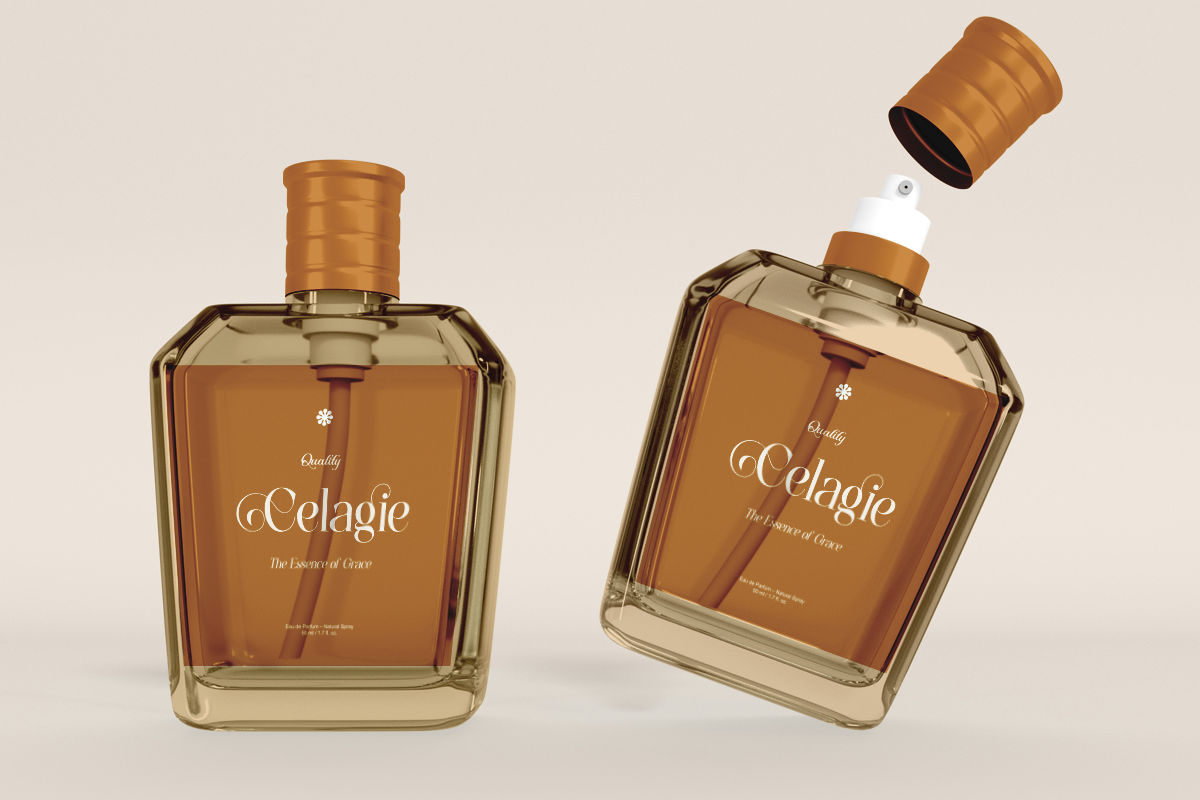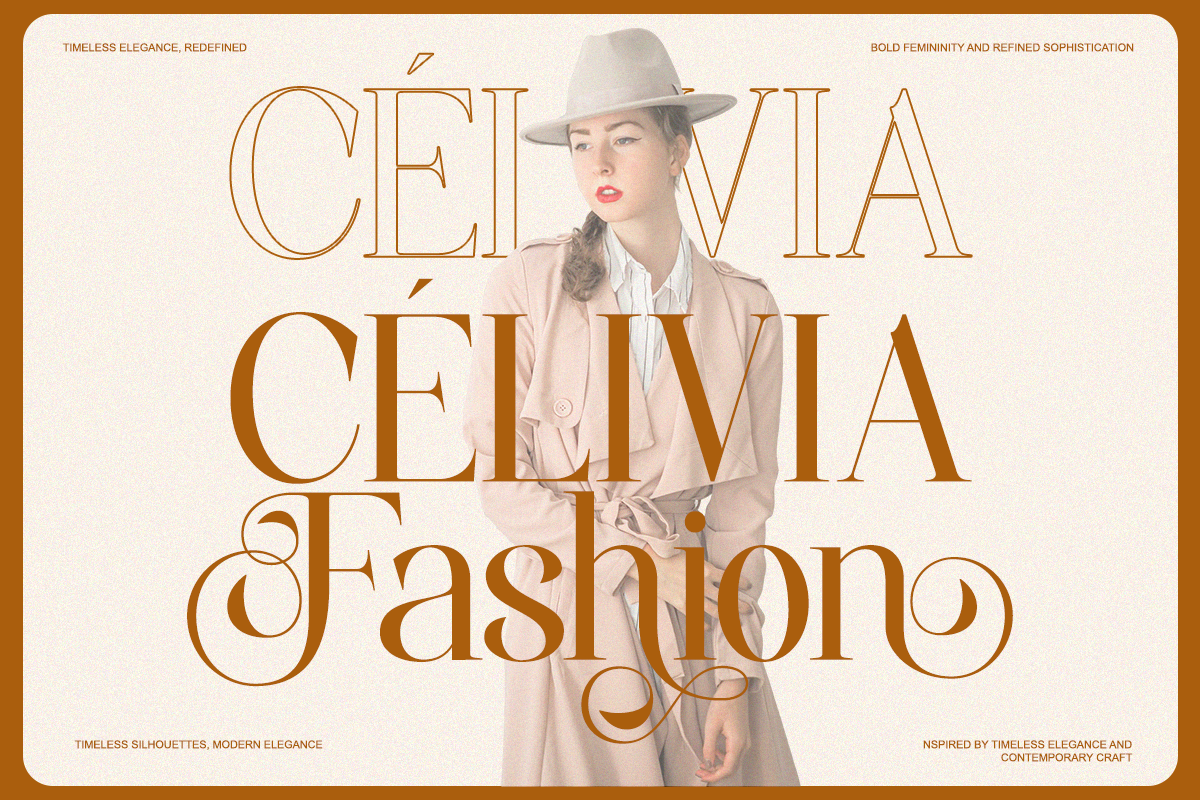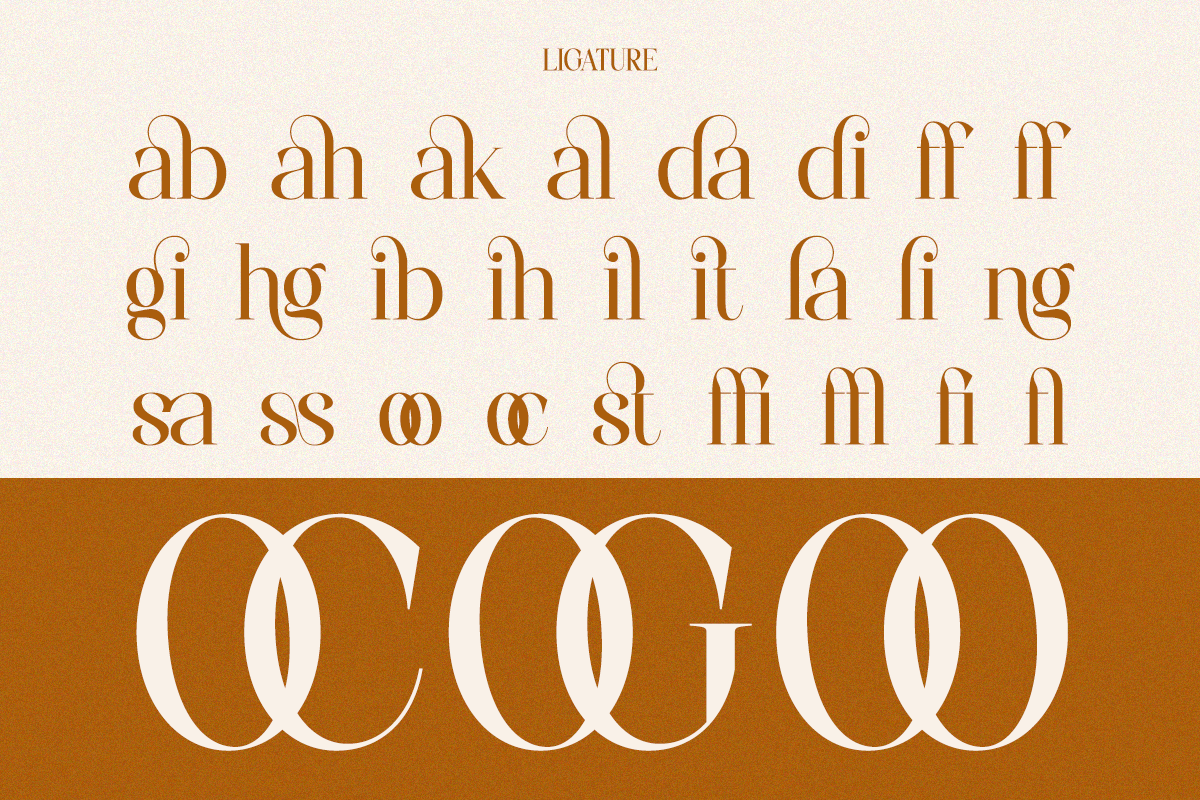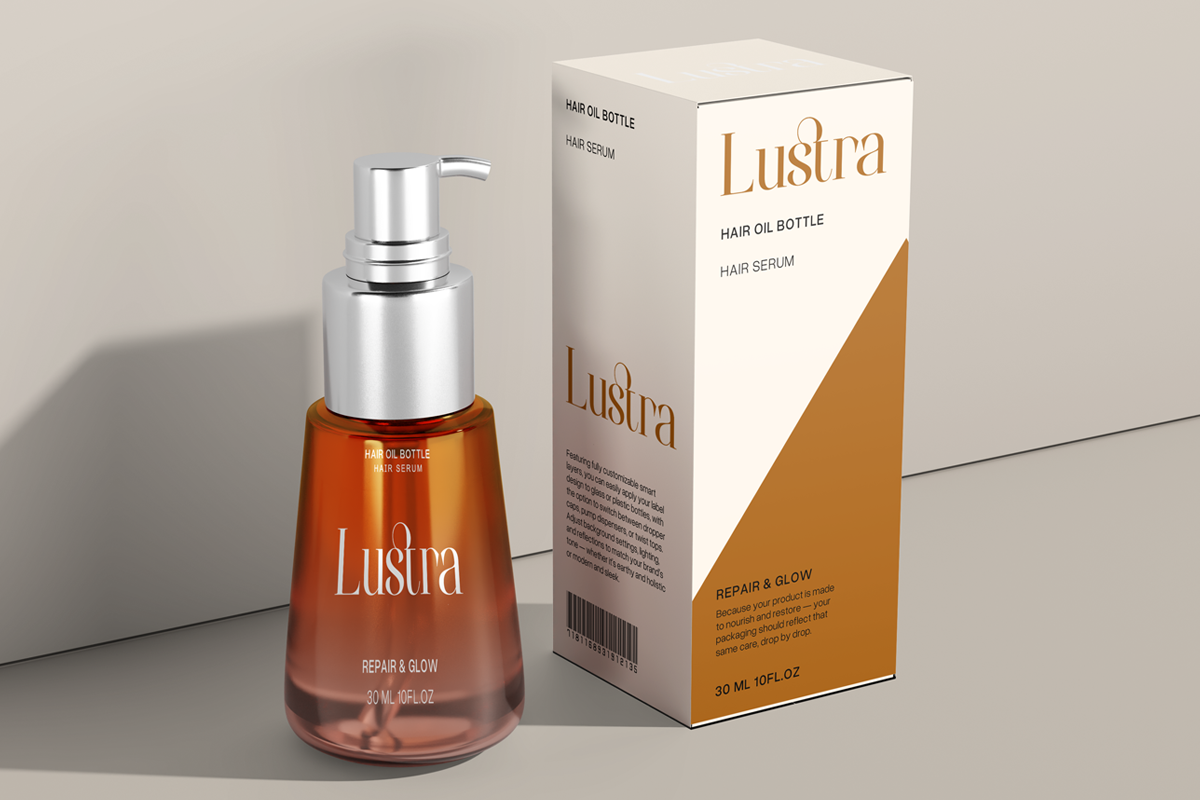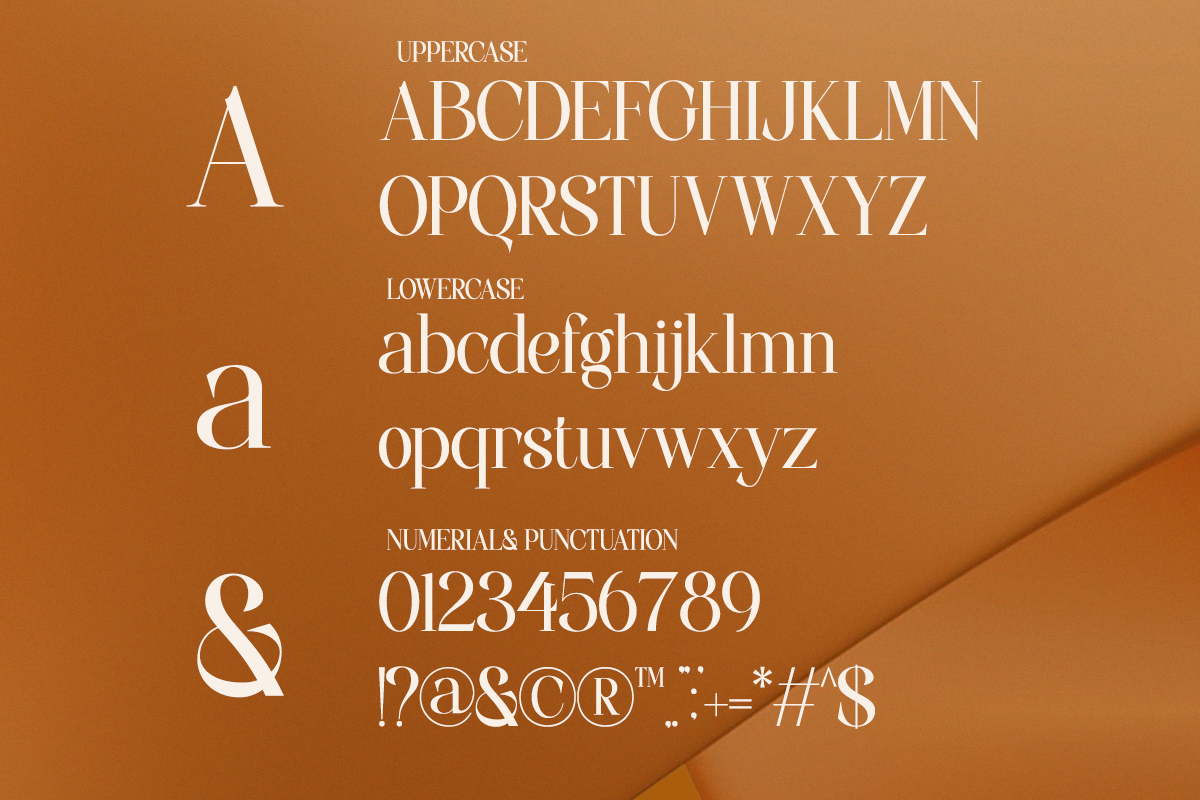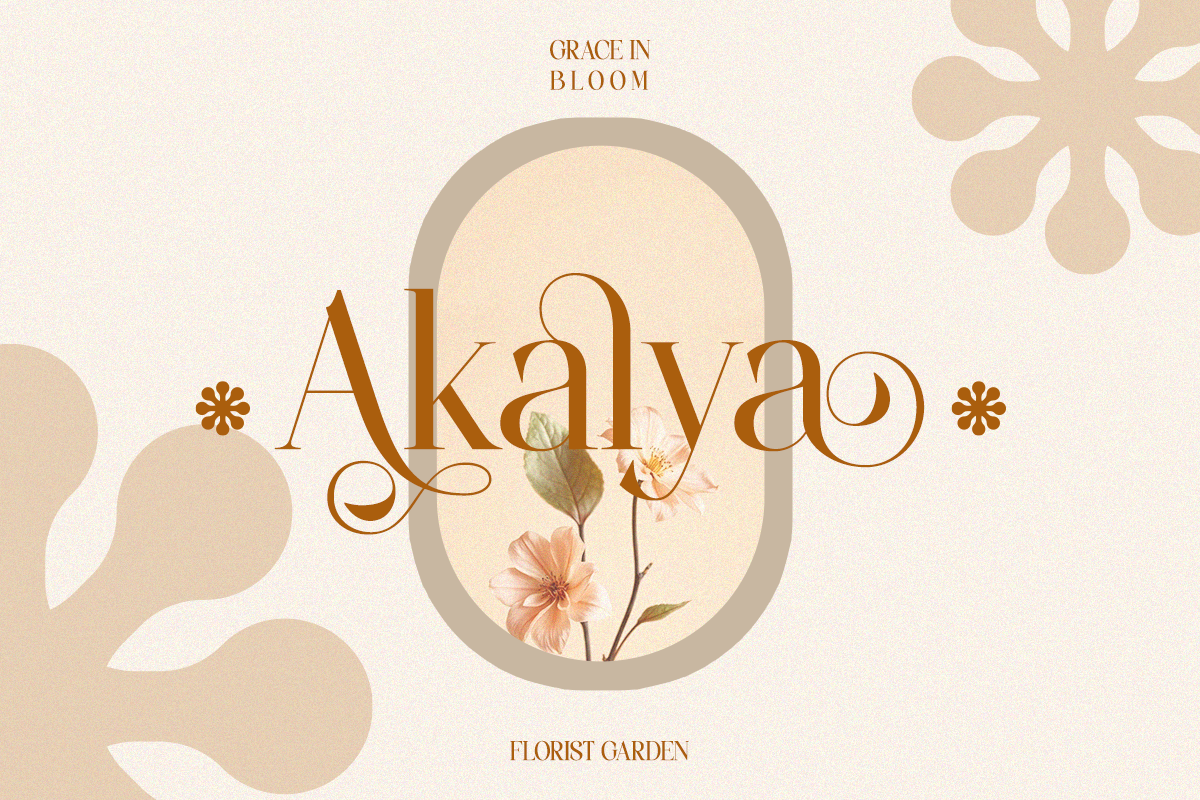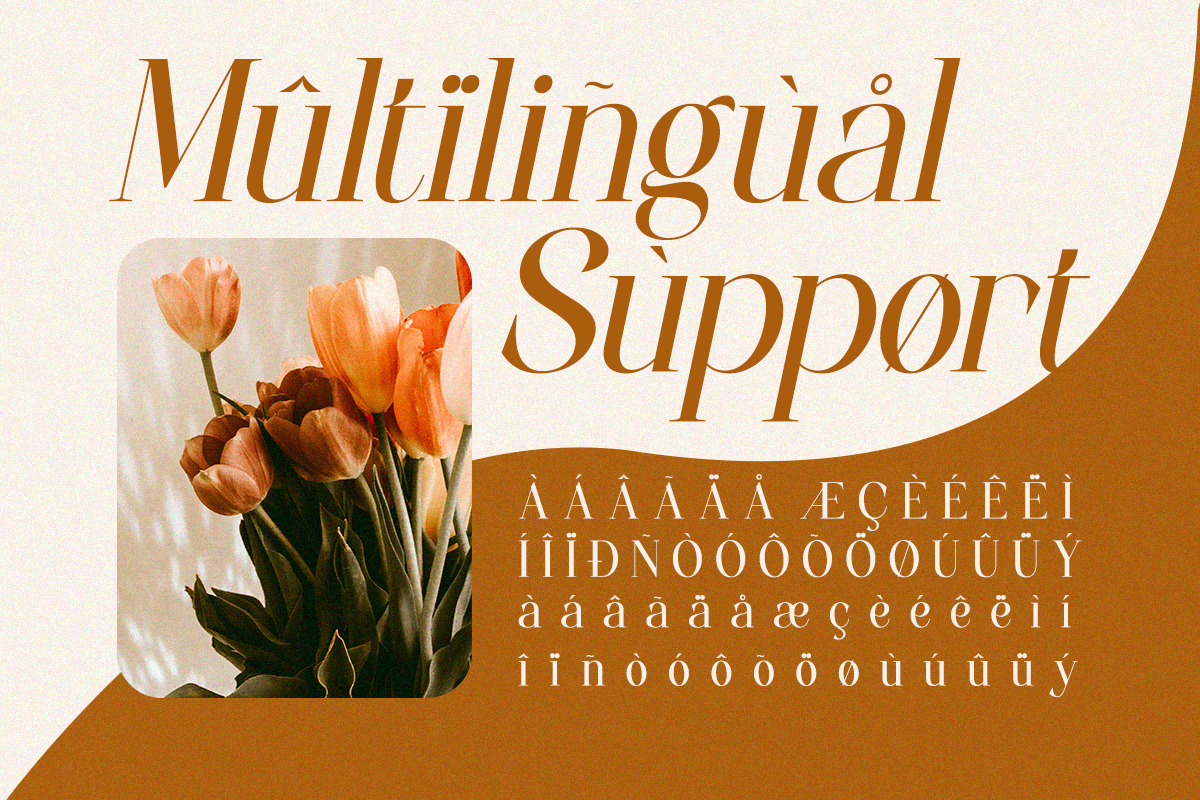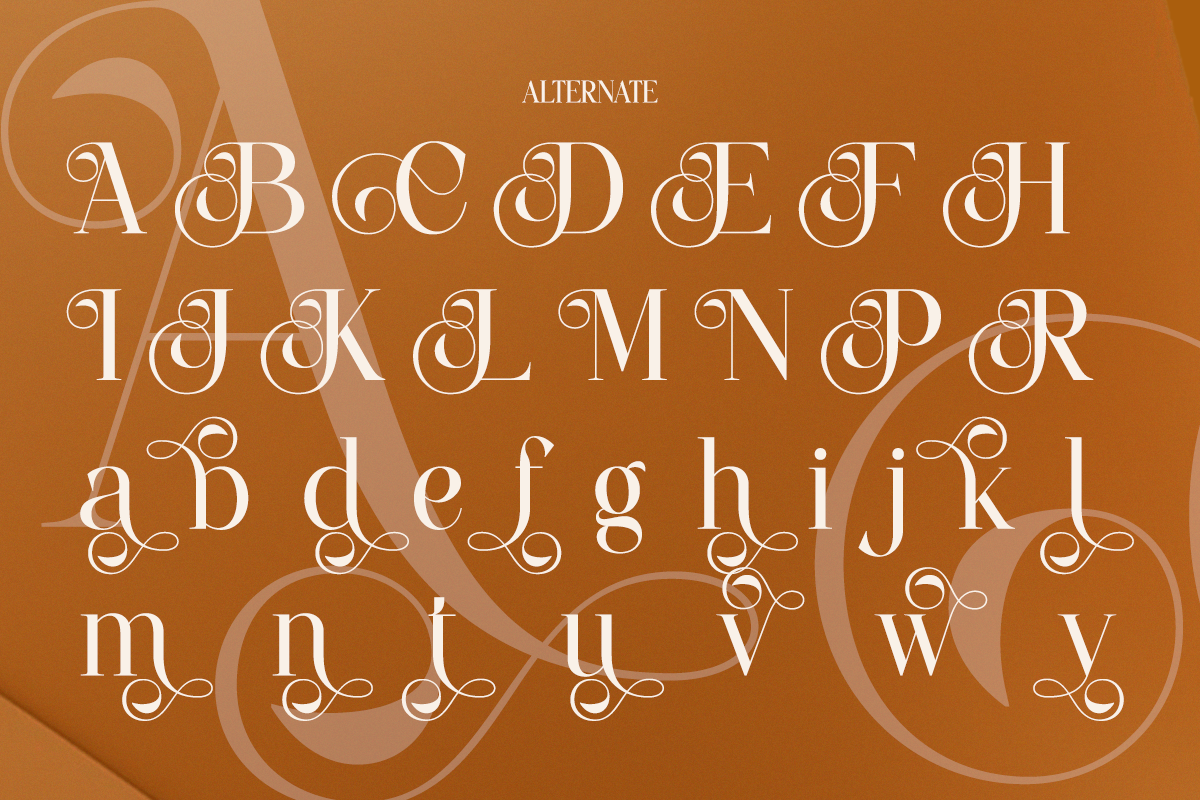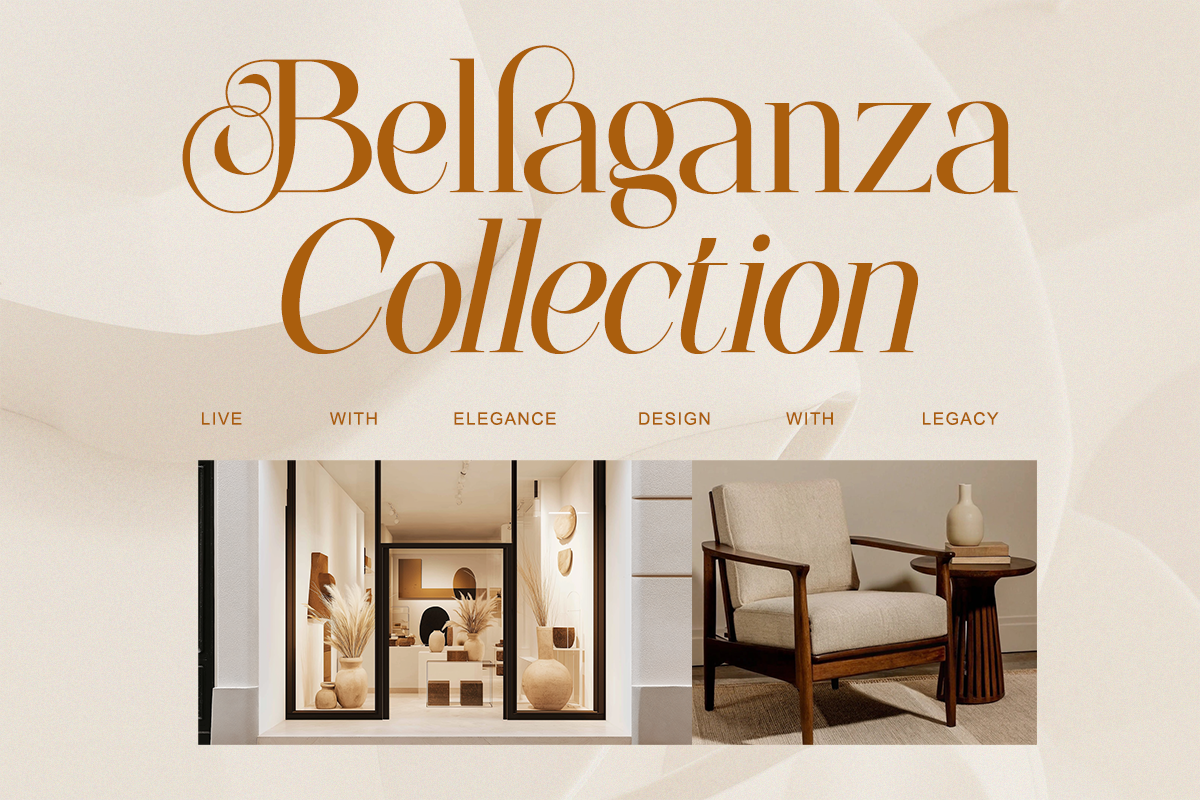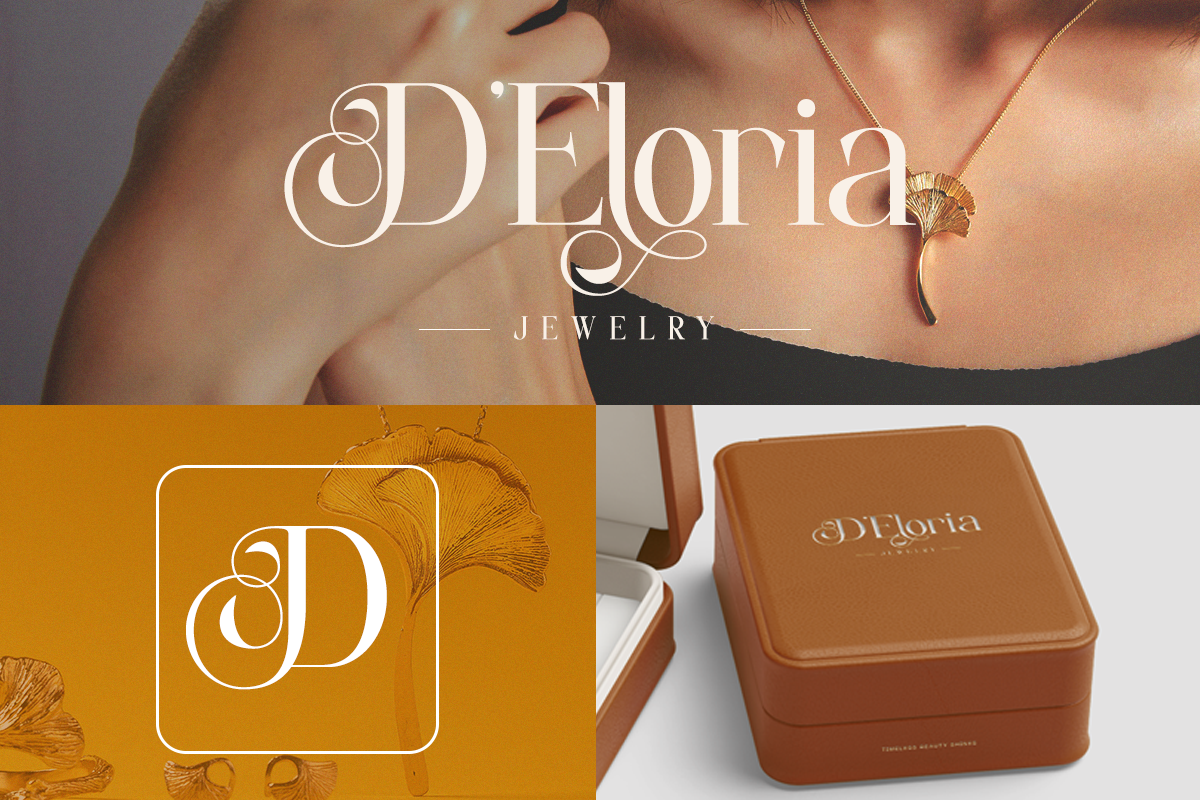
Coalissa - A Minimal Elegant Serif
Say hello to Coalissa, a minimal and elegant serif crafted with a soft luxury feeling. Designed with beauty and wellness aesthetics in mind, Coalissa blends modern simplicity with refined curves—perfect for high-end branding, editorial layouts, skincare packaging, and boutique logos.
Its gentle contrast and feminine rhythm bring a calming, polished tone to any design project.
- Regular & Italic
- Alternates & ligatures
- High-end stroke balance
Perfect For Beauty branding, skincare packaging, wellness logos, perfume design, editorial headlines, boutique identity, and modern social media templates.